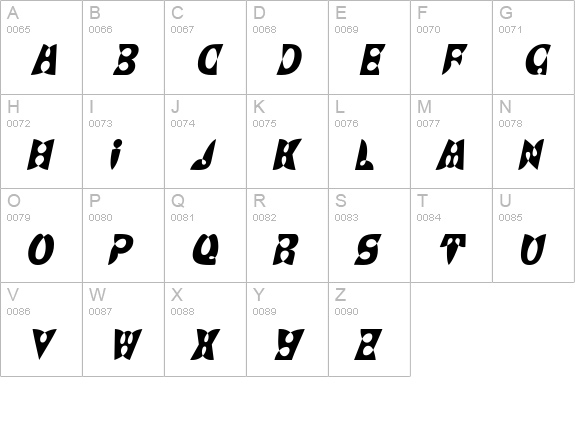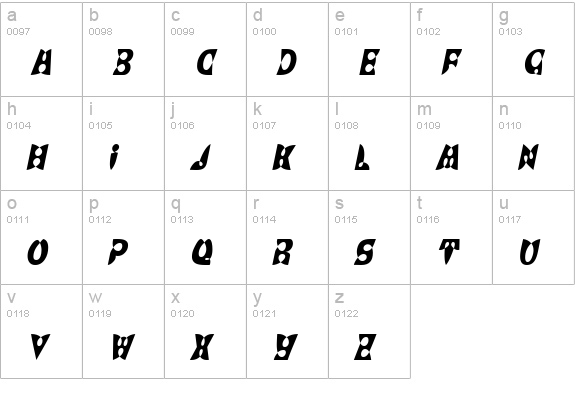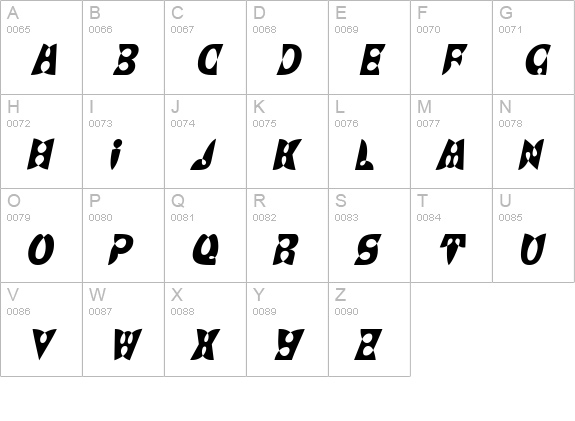
BrashDisplayCaps Italic Font Details
BrashDisplayCaps Italic is a distinctive, italic variant in the BrashDisplayCaps typeface family \xE2\x80\x94 well suited to design and typography projects.
BrashDisplayCaps Italic font exudes a bold and confident energy, perfect for making a statement in your design projects. Its elegant curves and sharp edges create a striking contrast, drawing attention to your text with flair. The italic styling adds a touch of sophistication and modernity to any text, making it ideal for headlines, logos, and other display purposes. And the best part? BrashDisplayCaps Italic font is available for free download at FontsMarket.com, allowing you to elevate your designs without breaking the bank. Don't miss out on this opportunity to add a touch of boldness and style to your projects with BrashDisplayCaps Italic font. Download it today and let your creativity shine!